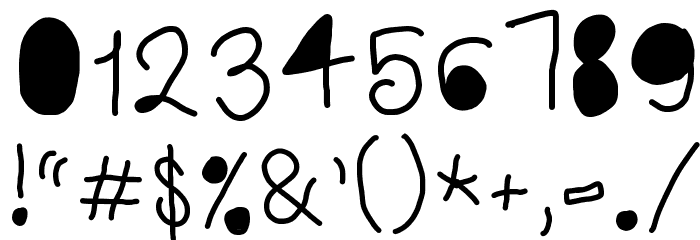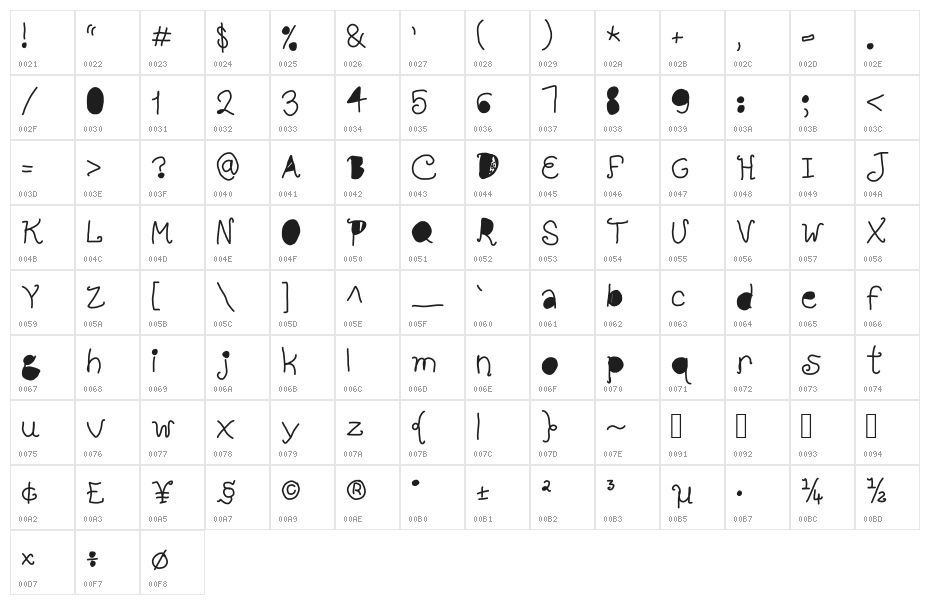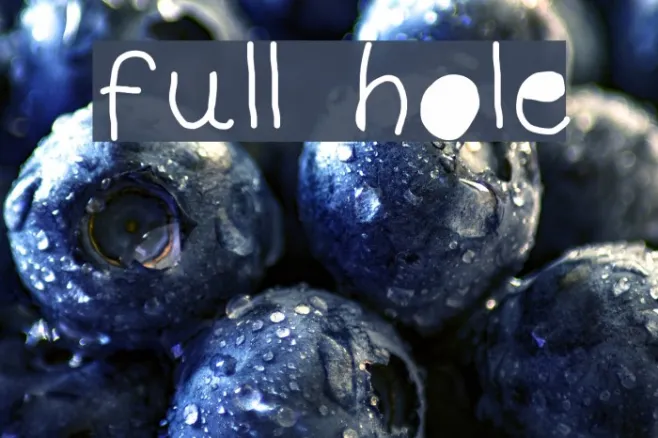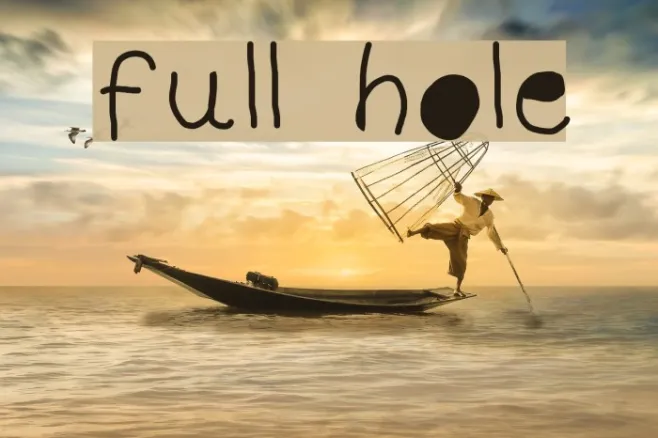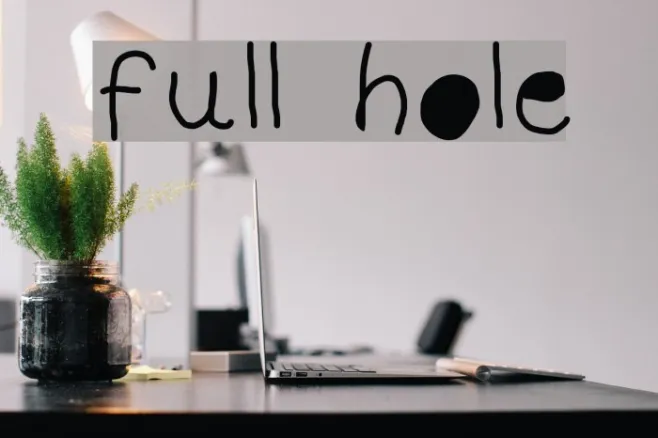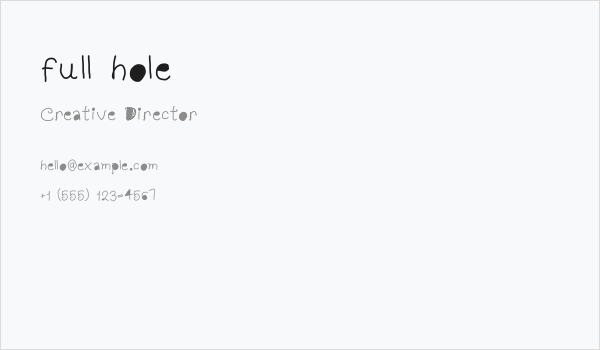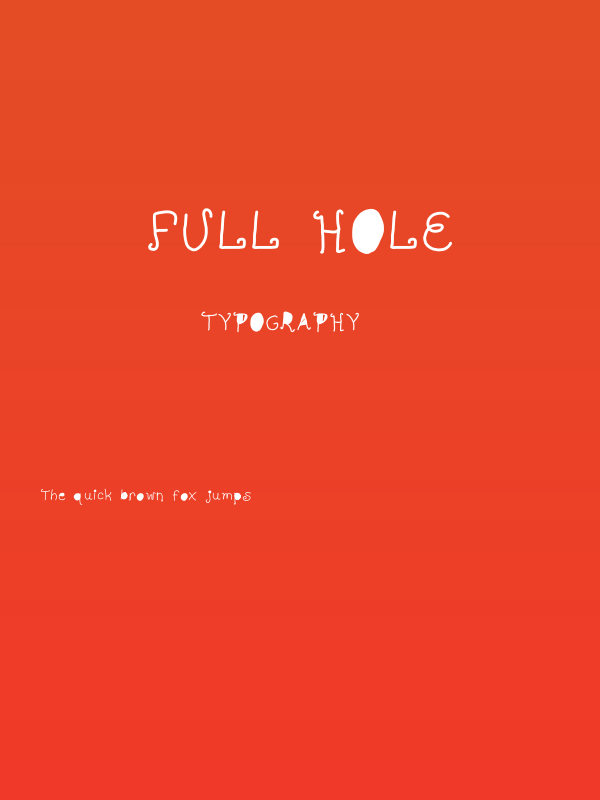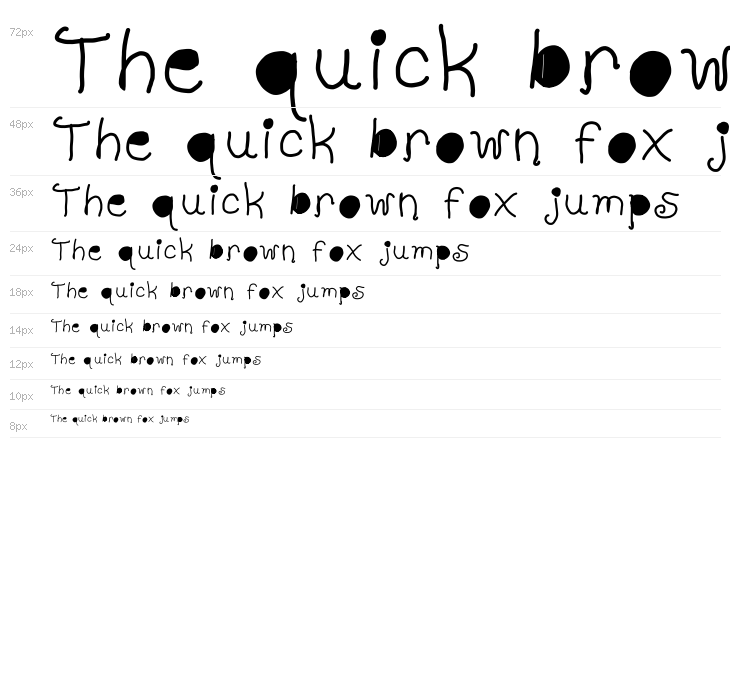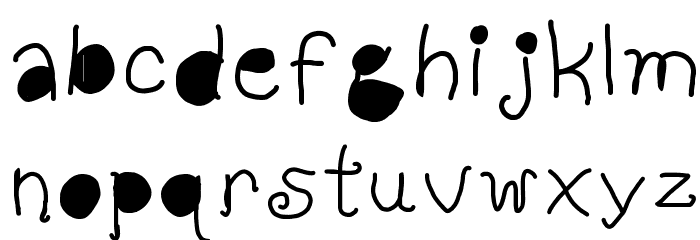
full hole Font
full hole Description
This font features a playful and whimsical design with uneven strokes and irregular shapes, giving it a hand-drawn appearance. The letters are characterized by their quirky, artistic flair, with some characters appearing bold and others more delicate. The uppercase and lowercase letters maintain a consistent style, with rounded edges and a slightly exaggerated form. Numbers and special characters follow the same playful aesthetic, adding to the font's overall charm. This font is ideal for projects that require a fun and informal touch, such as children's books, creative posters, or playful branding materials.
| Overall Style | Whimsical, Playful |
| Proposed Projects | Ideal for children's books, creative posters, playful branding, and informal invitations. |